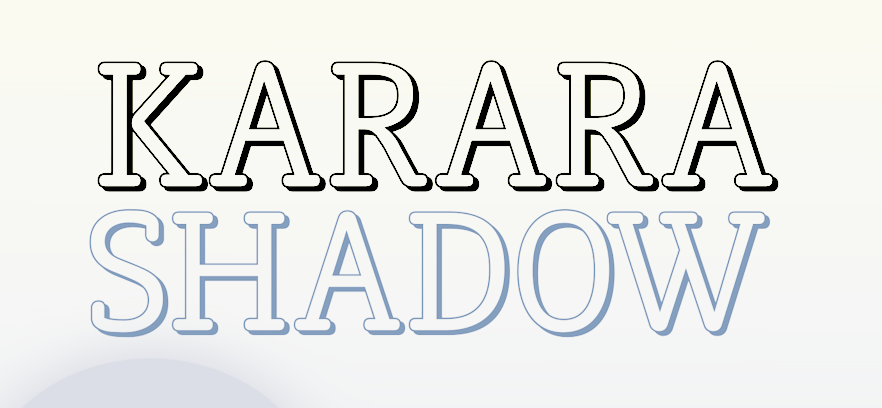
Kufic Studio [Ahsan Ahmedzai]
Pakistan-based designer of the (Latin) minimalist condensed sans typeface family Ozonos (2020), Karara Shadow (2020) and Karara (2020: a subdued slab serif family).
Typefaces from 2021: Bant (hand-printed), Royalana (a stocky monolinear sans; eight styles), Nevaeh (an 8-style rounded sans), Nevaeh Scratch, Pen Wave (a wild script), Verlo (a 6-style geometric serif with 45-degree terminal slopes), Celestial Planet (eight styles: stylized and minimalist).
Typefaces from 2022: Stigna (a condensed art deco typeface).